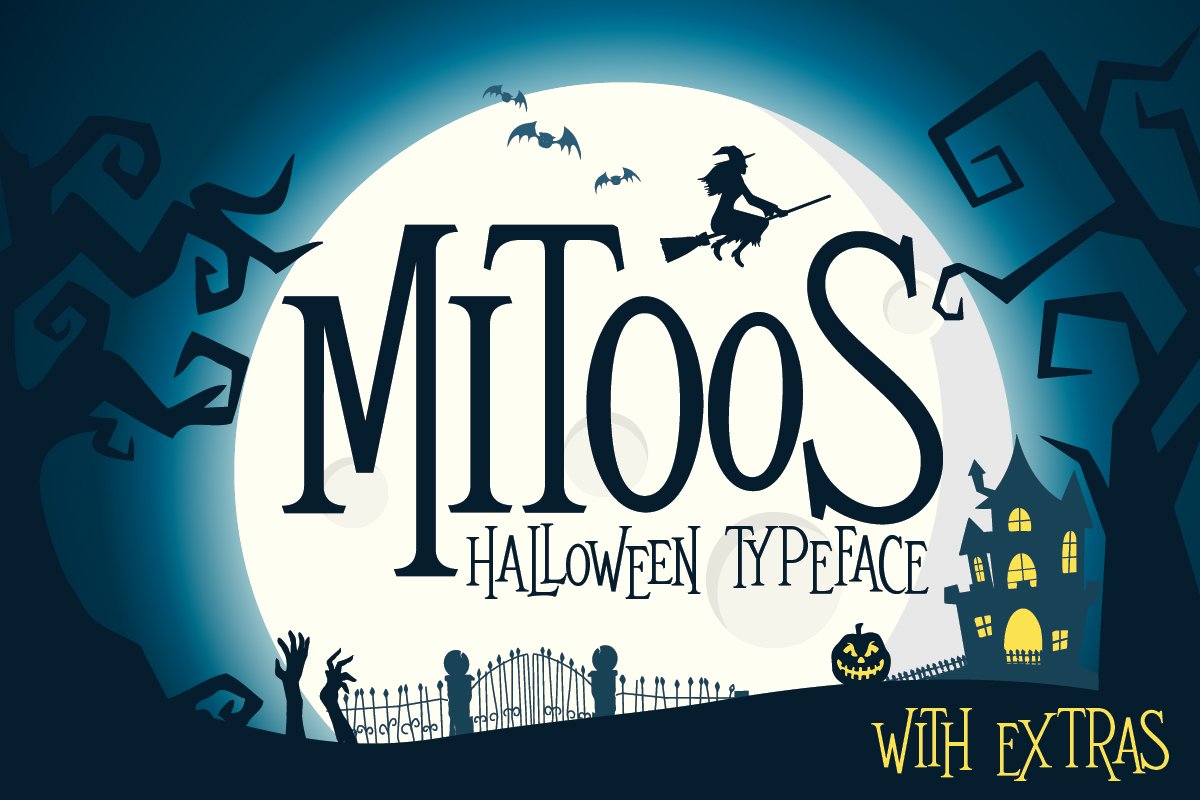
Mitoos Halloween typeface with extras
MITTOOS
Mitoos Halloween typeface
including 100+ Graphic elements: there are 100+ halloween graphic elements when you download this font, so of course you can arrange all the elements into a perfect design,
Mitoos Halloween typeface with extras